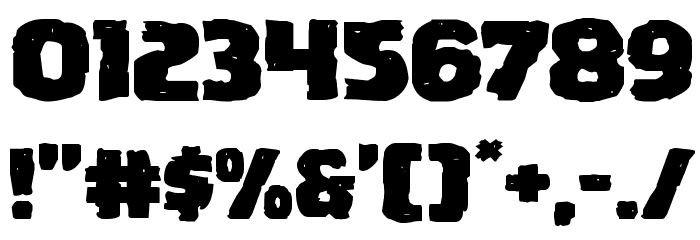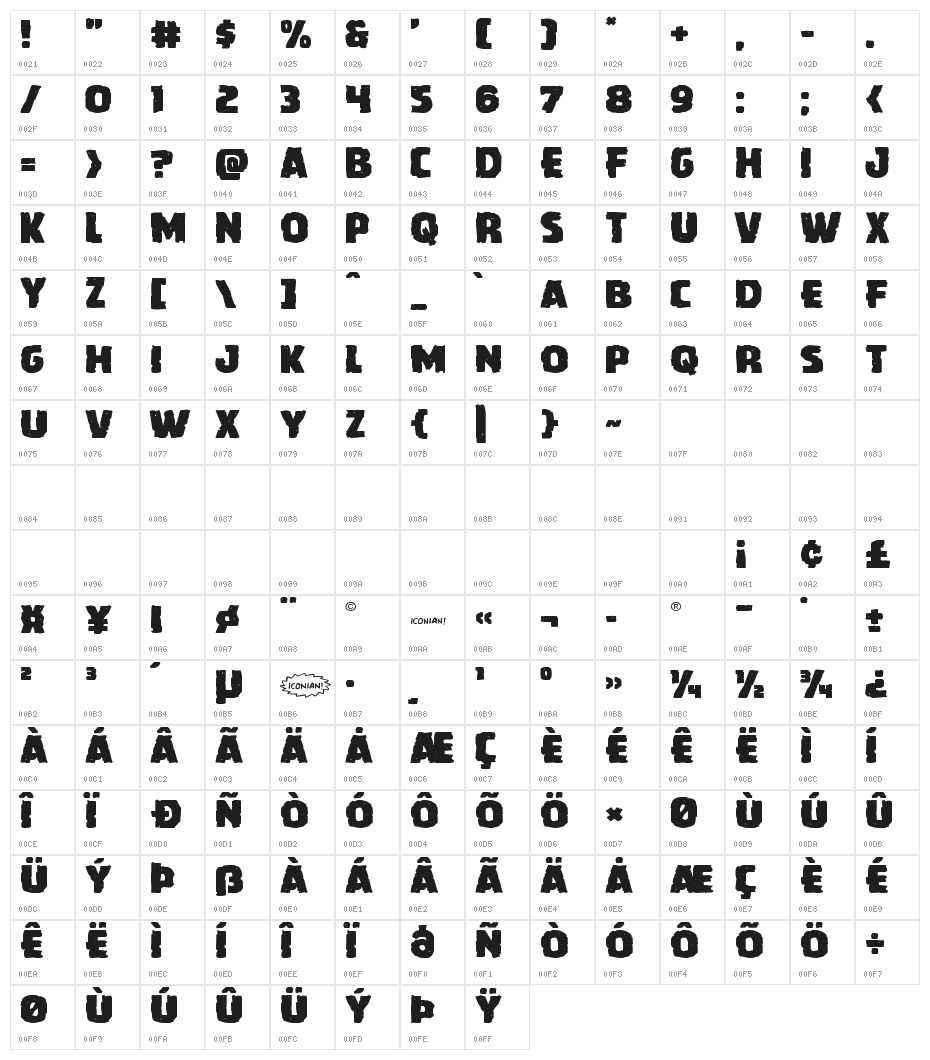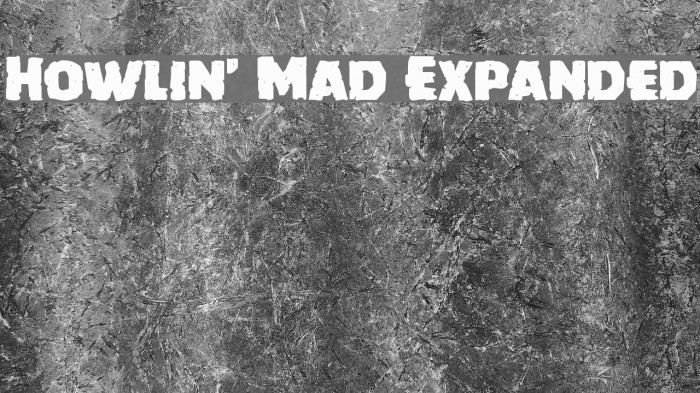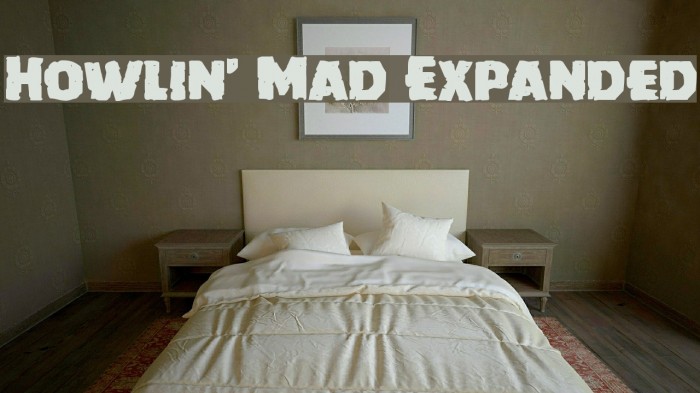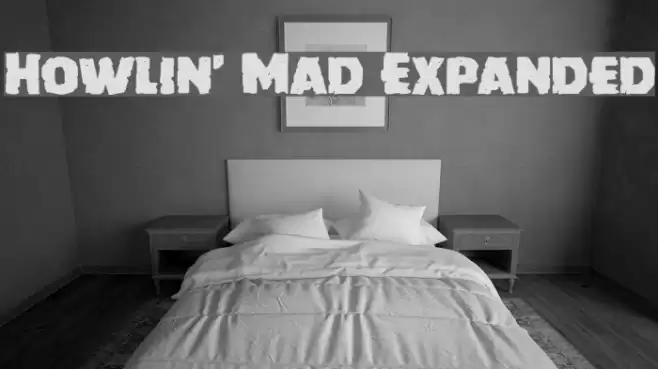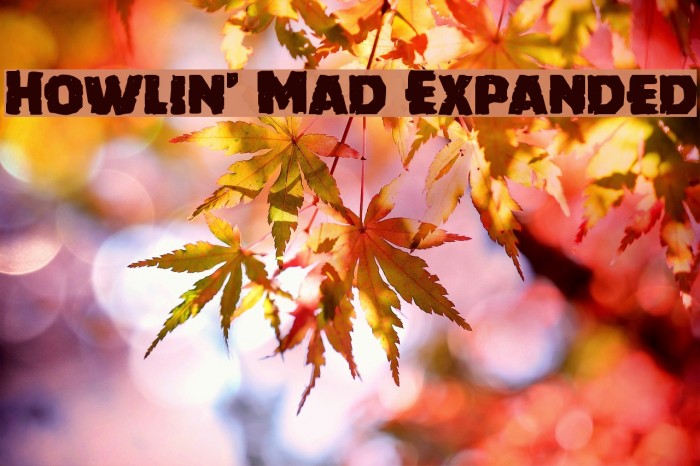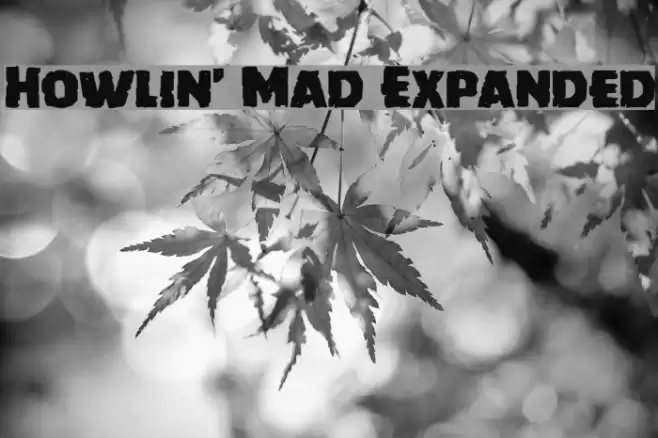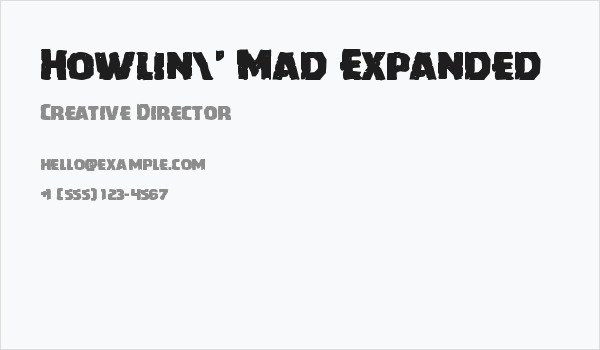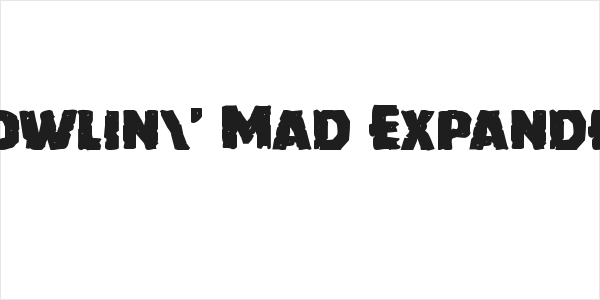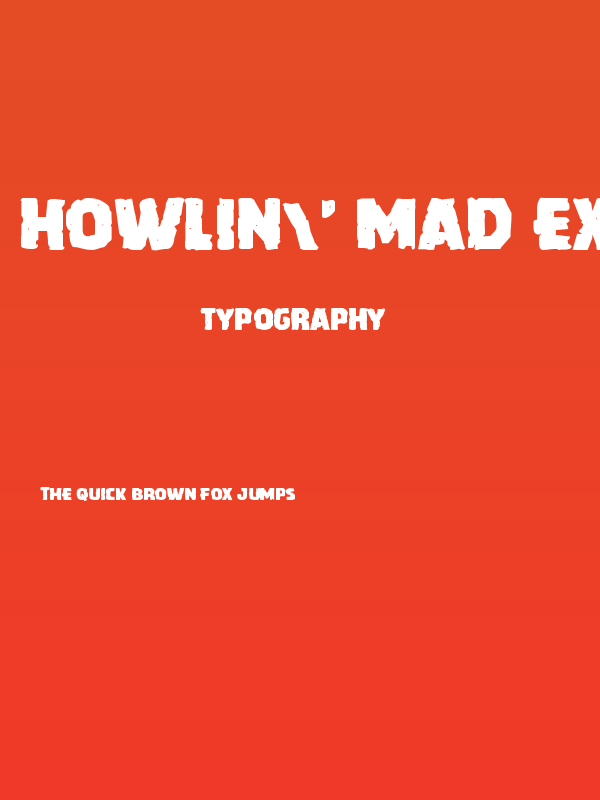
Howlin' Mad Expanded Font
Howlin' Mad Expanded Description
This font features a bold and rugged design with a distressed, grunge-like appearance. The characters are heavily textured, giving them a rough, hand-crafted look. The uppercase and lowercase letters maintain a consistent style, with thick strokes and uneven edges that add to the font's raw and energetic feel. The numbers and special characters follow the same aesthetic, ensuring a cohesive look across all glyphs. This font is ideal for projects that require a bold, impactful statement, such as posters, album covers, or branding for edgy or alternative products.
Proposed ProjectsIdeal for posters, album covers, branding for alternative products, and any project needing a bold statement.